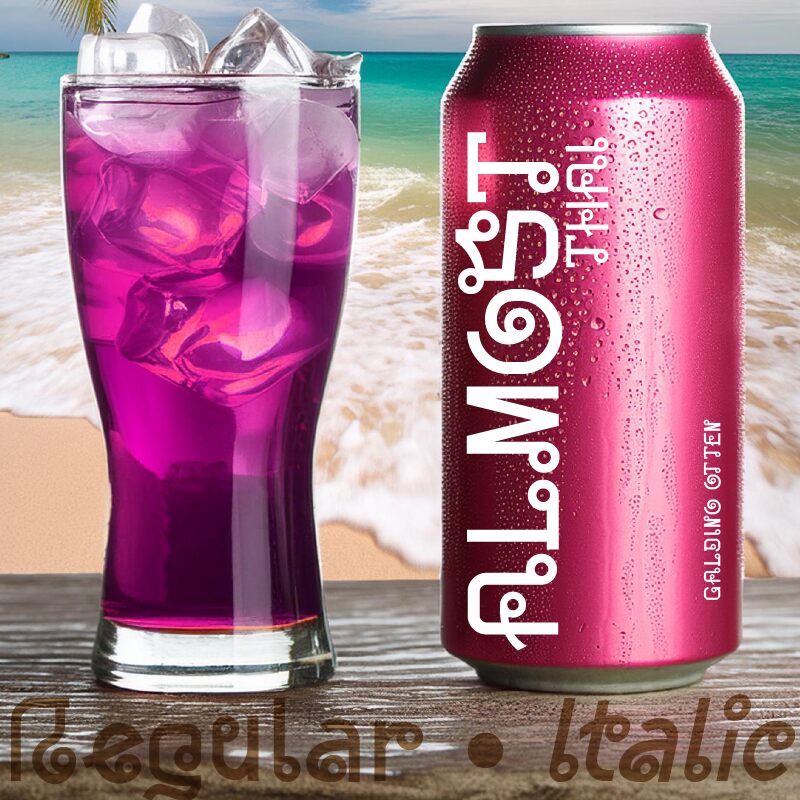
Almost Thai, a captivating font created by Galdino Otten Fonts, exudes a harmonious blend of tradition and modernity. With its intricate, organic curves and smooth, flowing strokes, this Thai-inspired typeface evokes a sense of cultural elegance and refined artistry. The unique character shapes and delicate ligatures seamlessly intertwine, creating a visually striking and memorable aesthetic that resonates with both contemporary and heritage-inspired design sensibilities.
The versatility of Almost Thai shines through its adaptability to a wide range of design applications. From captivating headlines and impactful branding to immersive editorial layouts and captivating packaging, this font's distinctive character is well-suited to enhance projects that seek to celebrate cultural heritage, convey a sense of timelessness, or evoke a sophisticated, artistic atmosphere.